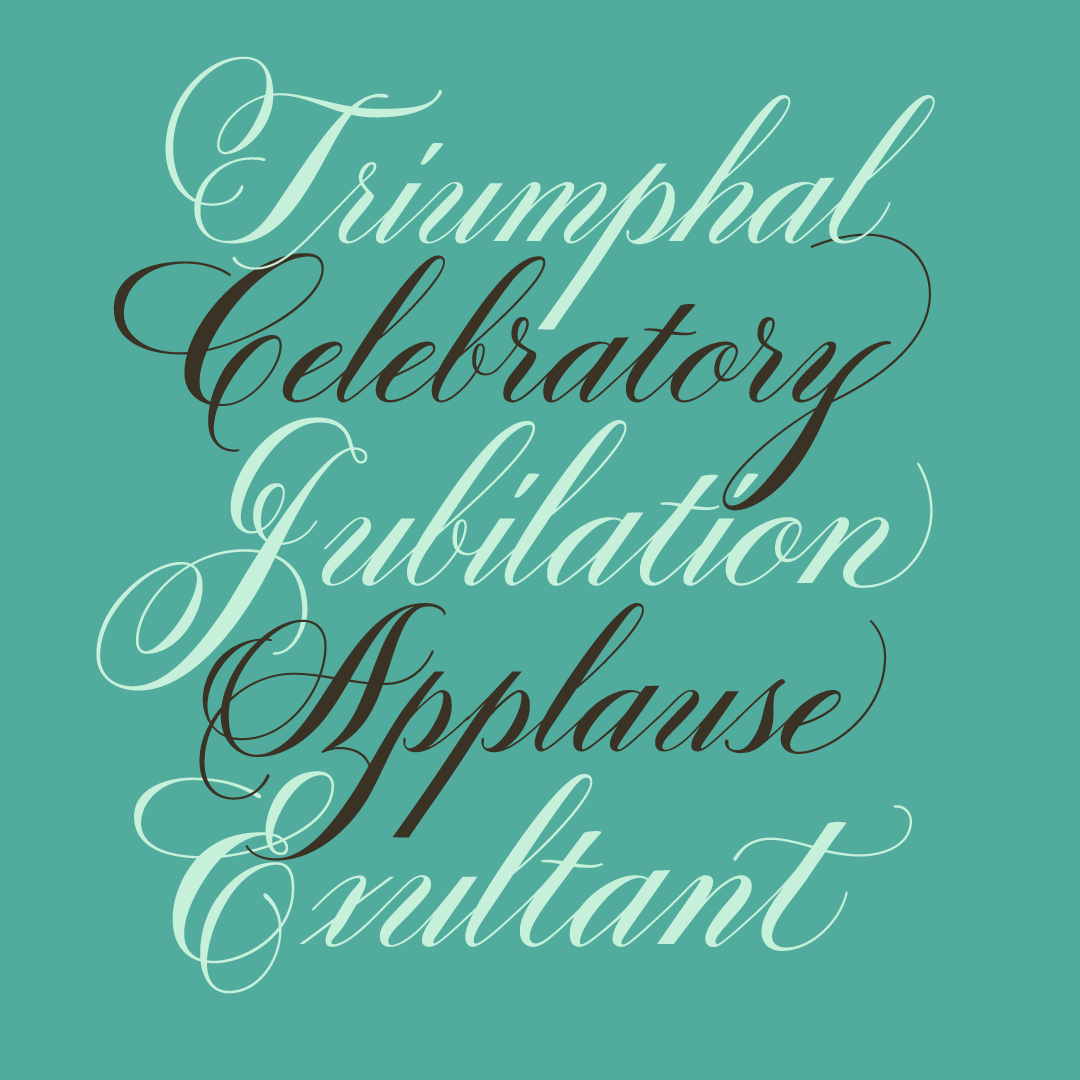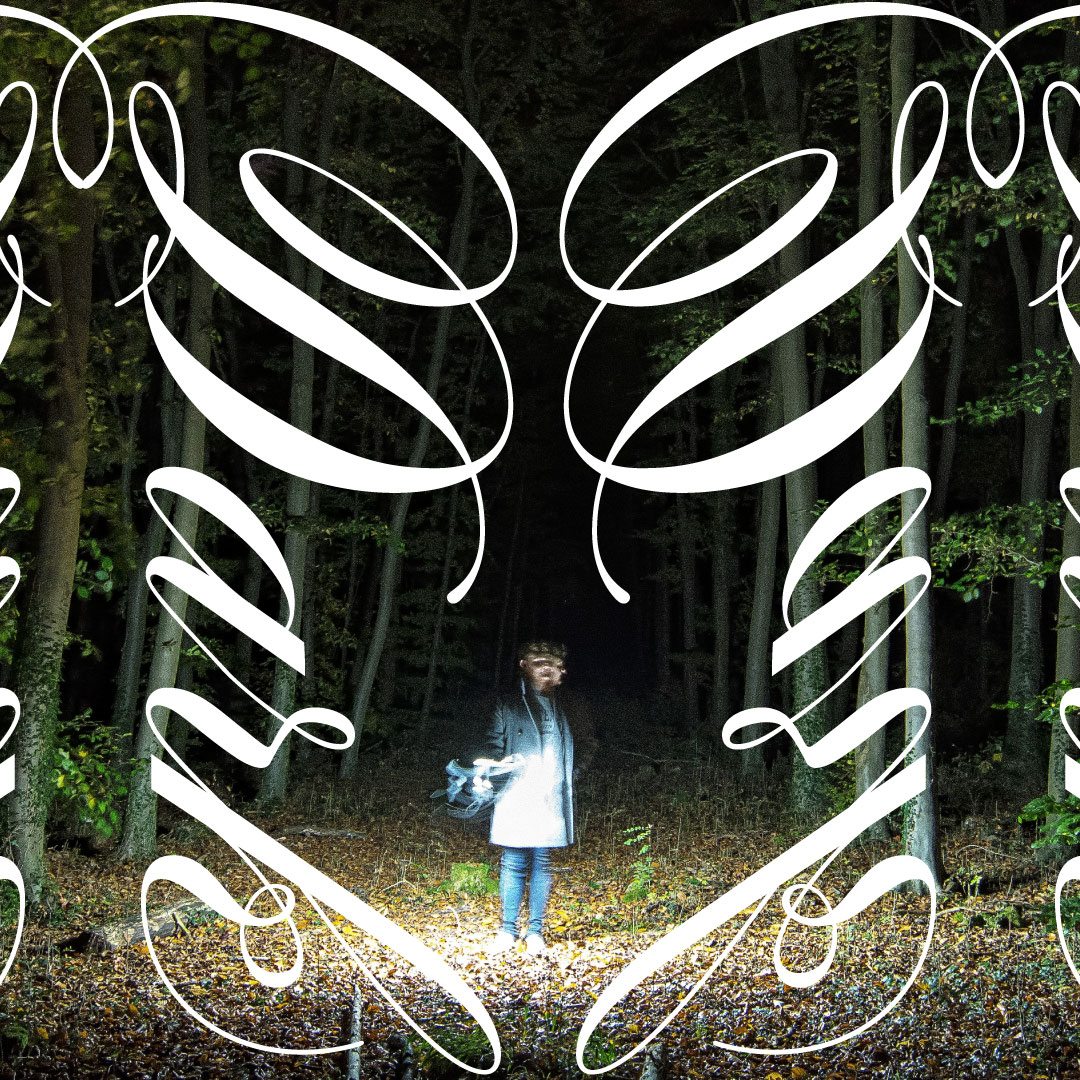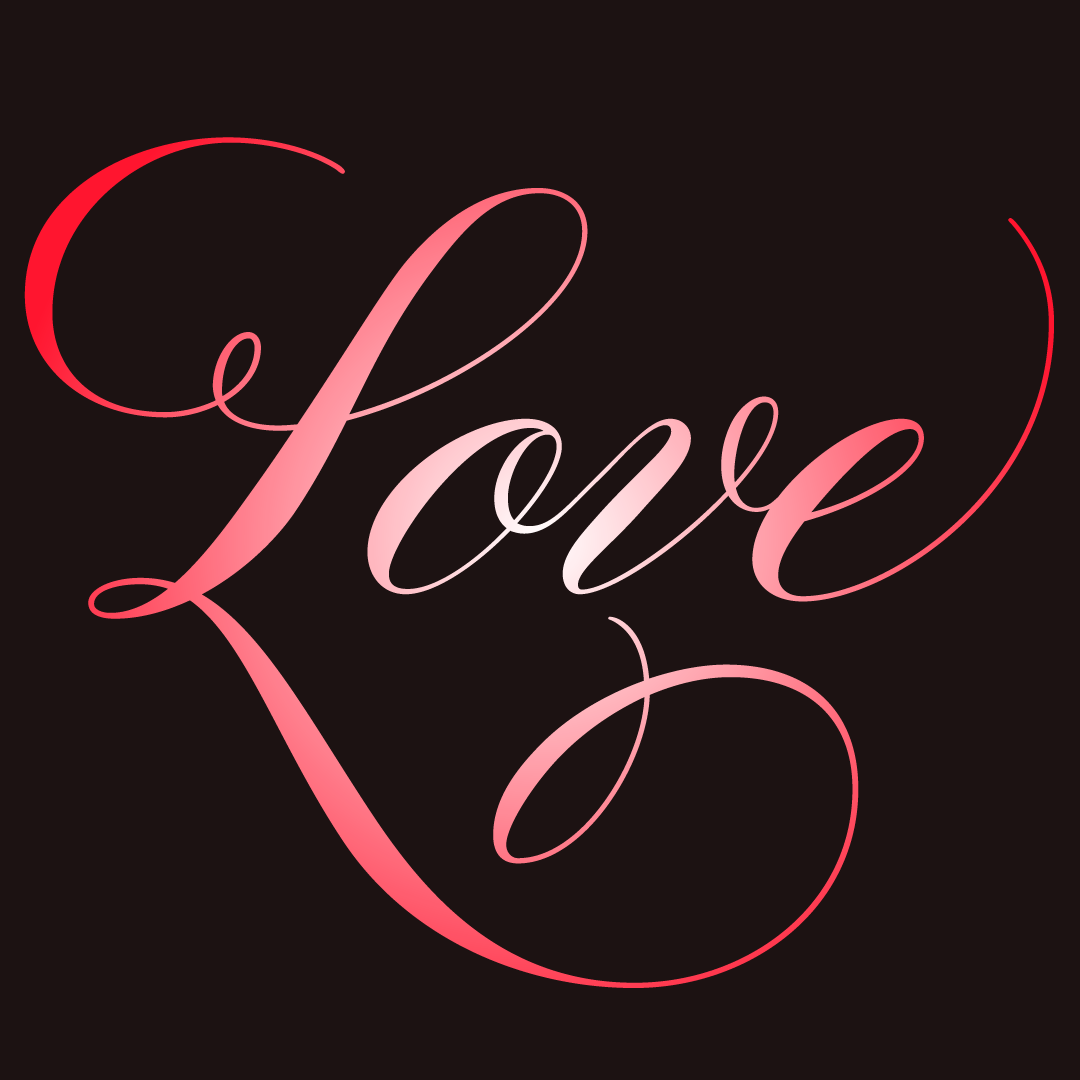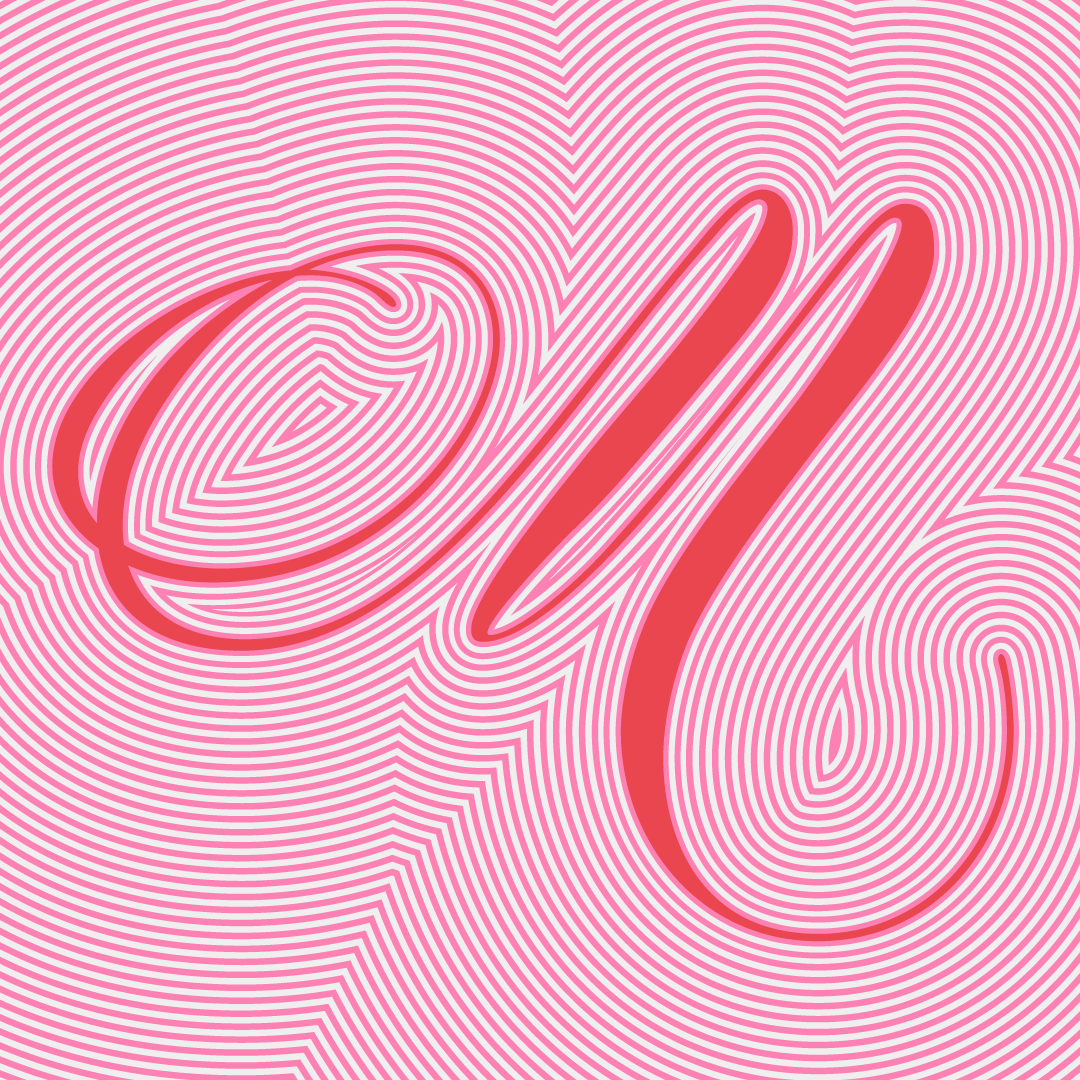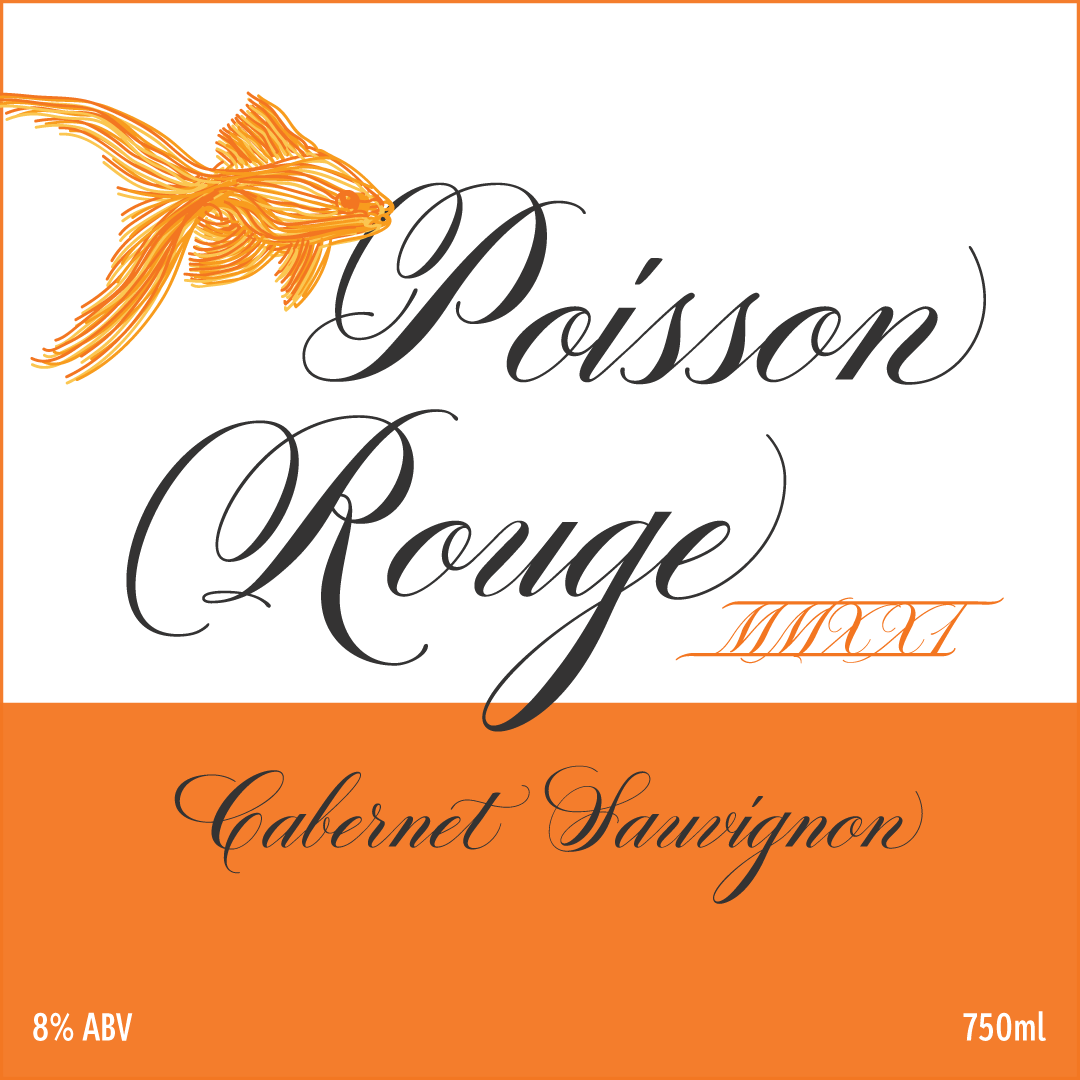
Vena Amoris®
An endearing formal script with clever features.
Designed by Kathryn Podorsky
New Orleans, June 25, 1895
My dear Edmond,
I found upon my return home to dinner yesterday, your letter informing me of your affection for Annie and asking that we confide her future happiness to your keeping…
This excerpt was taken from a letter written by designer Kathryn Podorsky’s great-great-grandfather, Lucien Doize, in response to Edmond’s request to marry his daughter, Annie. The letter was not only beautiful contextually, but exquisitely penned and epitomized the delightful charm of the New Orleans people of the time.
Vena Amoris, or “Vein of Love” refers to a phrase coined by Henry Swinburne in his A Treatise of Espousal published in 1686. Vena Amoris also refers to the fourth finger on the left hand which was traditionally believed to contain a vein running directly to the heart, hence “the ring finger.”
As a digital font, Vena Amoris boasts an extensive Latin-based character set that supports 310 languages. Also included are stylistic and contextual alternates, ligatures, swash variants, oldstyle figures, and roman numerals and calligraphic words that will undoubtedly bring a dynamic quality to any setting.
All of those extras are driven by cleverly applied OpenType features allowing you to add harmony and calligraphic beauty to your layout.
Additional features include: Kerning, Fractions, Standard Ligatures, Contextual Ligatures, Localized Forms, Ordinals, Case-Sensitive Forms, Capital Spacing, Stylistic Sets, Initial Forms, and Terminal Forms.